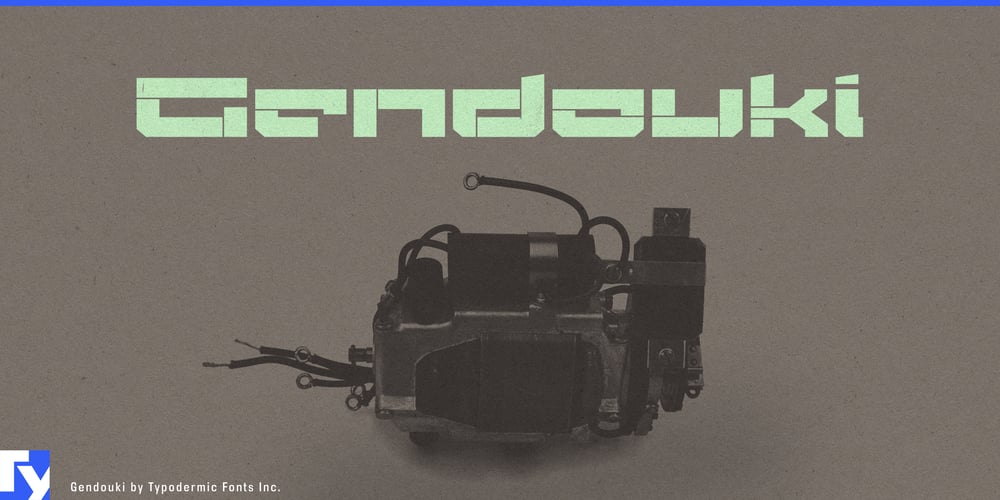
Gendouki
Gendouki font
Gendouki Font Family was designed by Ray Larabie and published by Typodermic. Gendouki contains 1 styles and family package options. Embark on a typographic odyssey with Gendouki, a font that doesn’t just glimpse the future—it catapults your designs into a realm where typography and technology converge. Gendouki’s striking filament stencil lines evoke the sleek aesthetics of spacecraft access panels, infusing your designs with an air of cutting-edge sophistication. Each character is a masterpiece of precision engineering, its form honed to perfection like the contours of an interstellar vessel. As a large, low-contrast backdrop element, Gendouki transforms your canvas into a futuristic landscape. It creates depth and dimension, turning flat designs into immersive experiences that captivate and intrigue. Your content doesn’t just sit on the page—it orbits through a galaxy of visual possibilities.But Gendouki truly comes alive when used as a techno drop-cap. Watch as it ignites your paragraphs with kinetic energy, each letter a launchpad for the reader’s imagination. It doesn’t just start sentences; it initiates journeys through textual space-time. Gendouki’s linguistic versatility matches its visual dynamism. Supporting a vast array of Latin-based European writing systems, it ensures your futuristic message resonates across cultures and borders. From Afaan Oromo to Zuni, Gendouki speaks the universal language of tomorrow.In a world racing towards the future, Gendouki isn’t just keeping pace—it’s setting the course. Because when your typography can traverse time and space, why settle for anything less than light-speed brilliance?